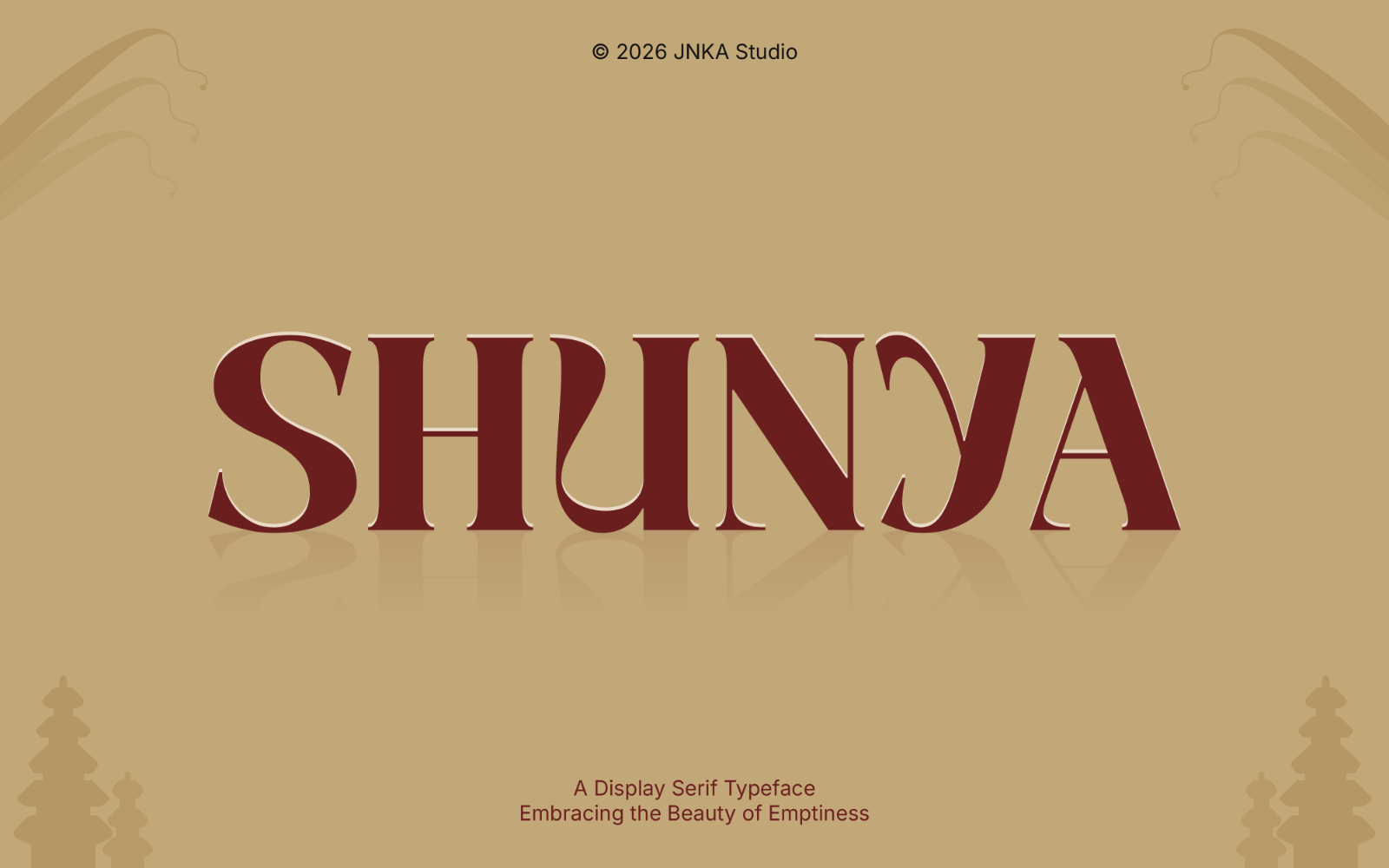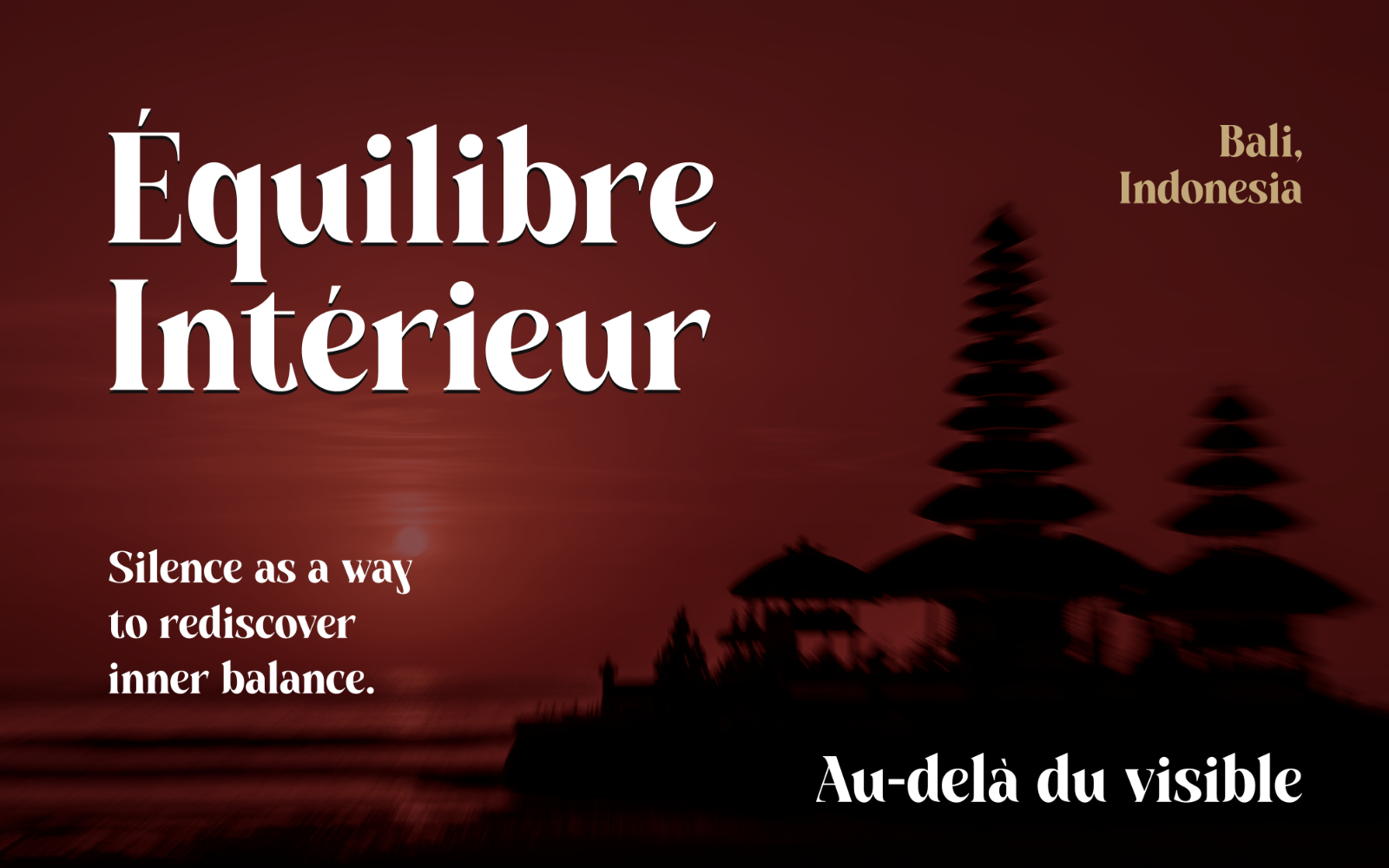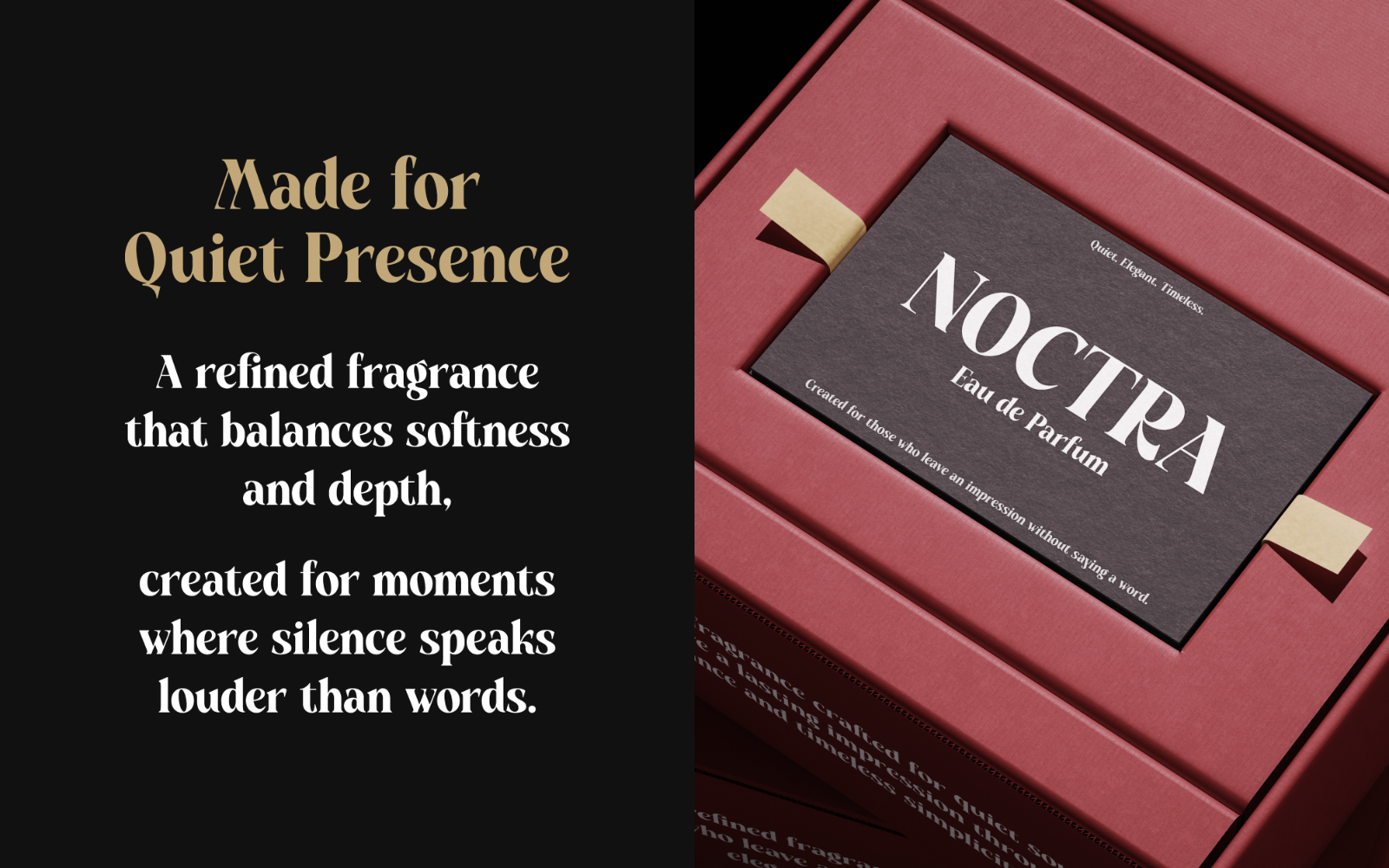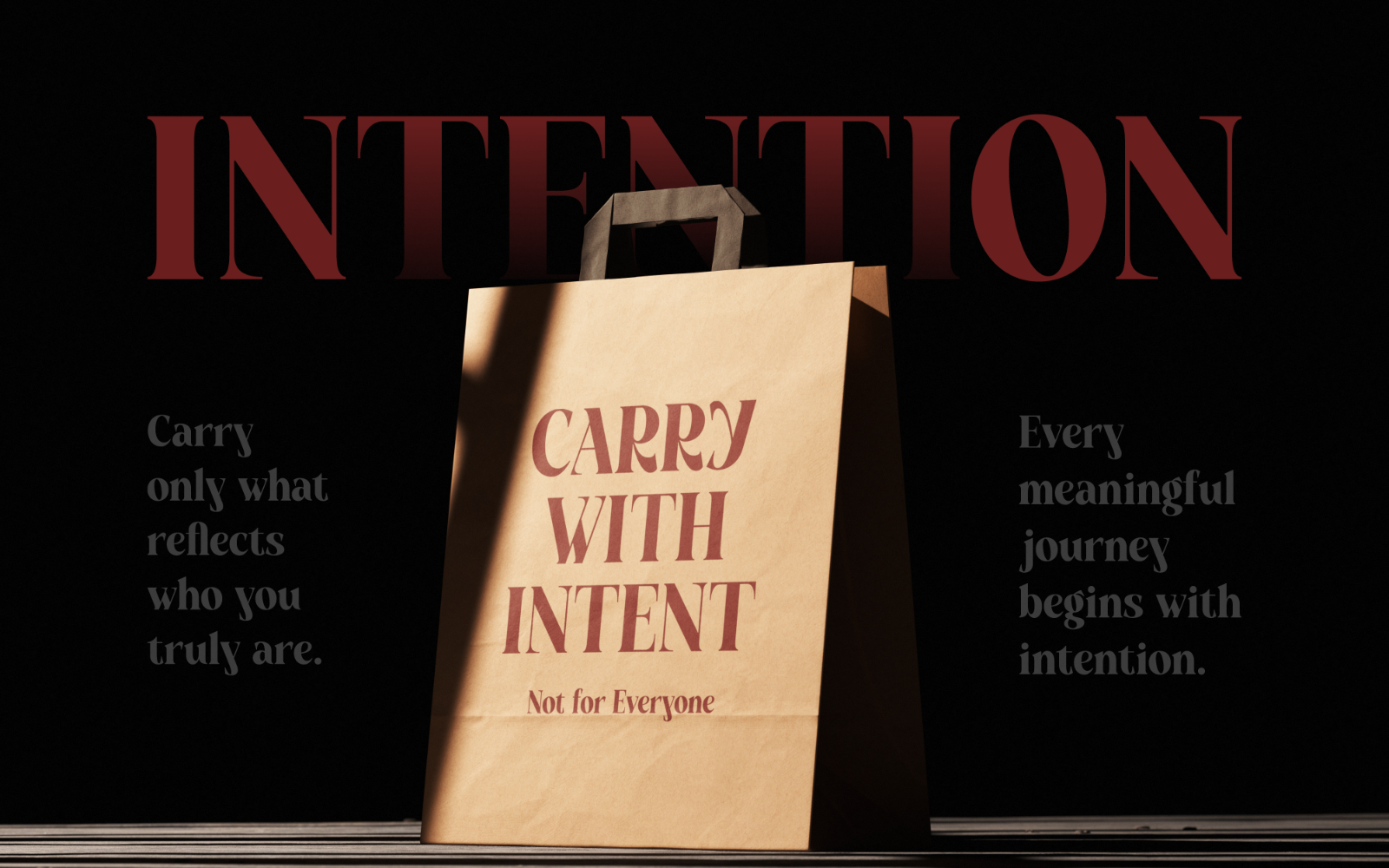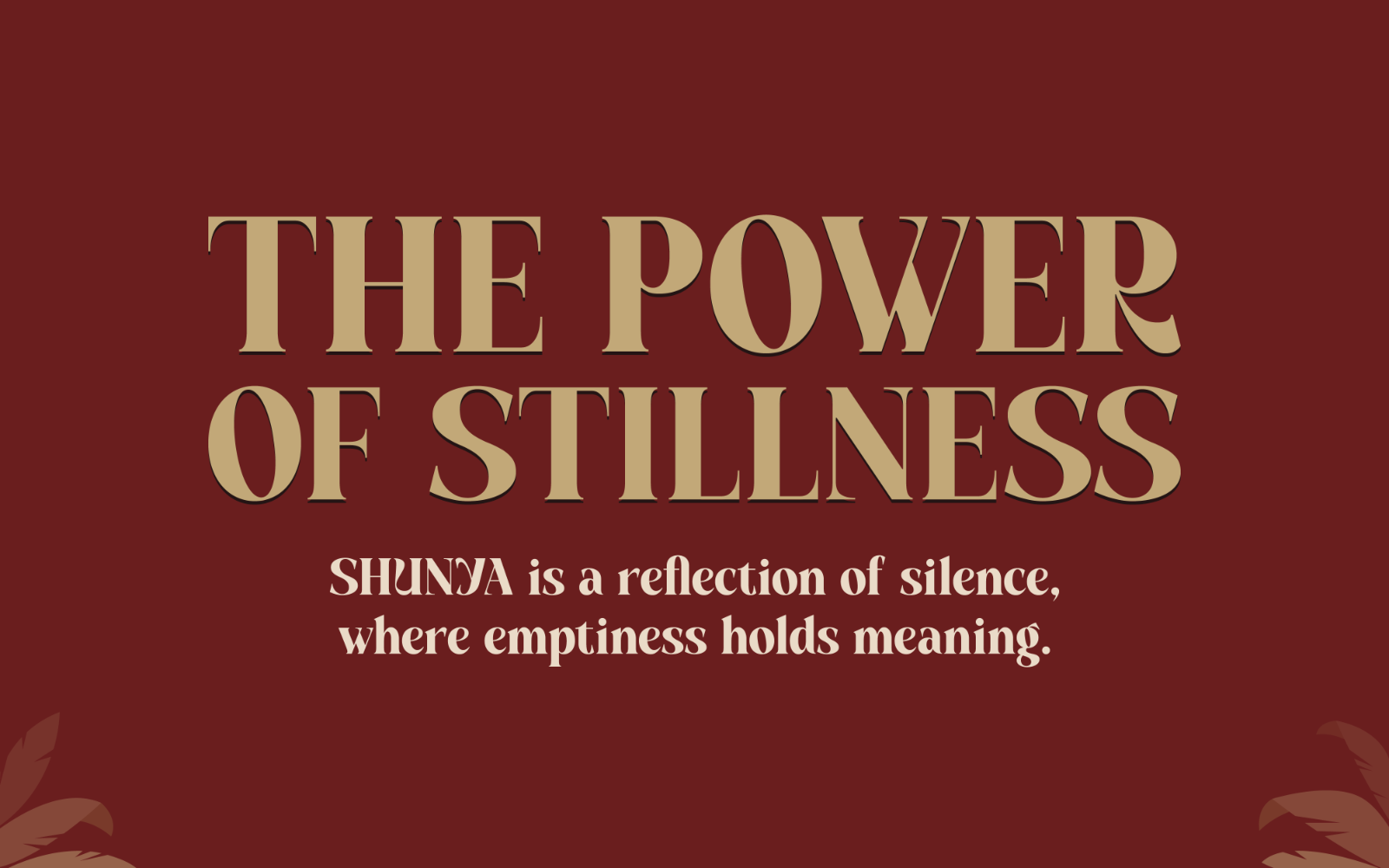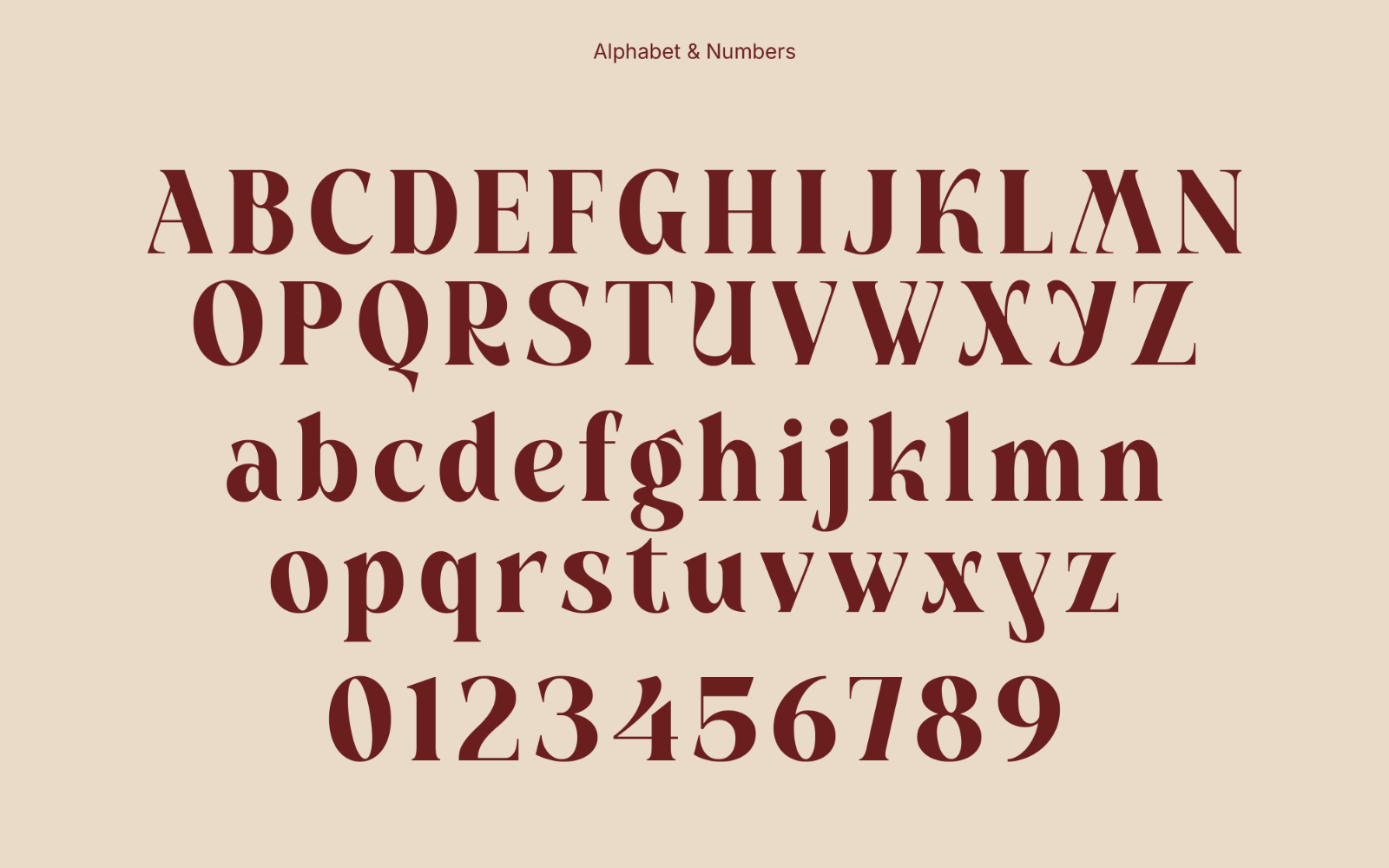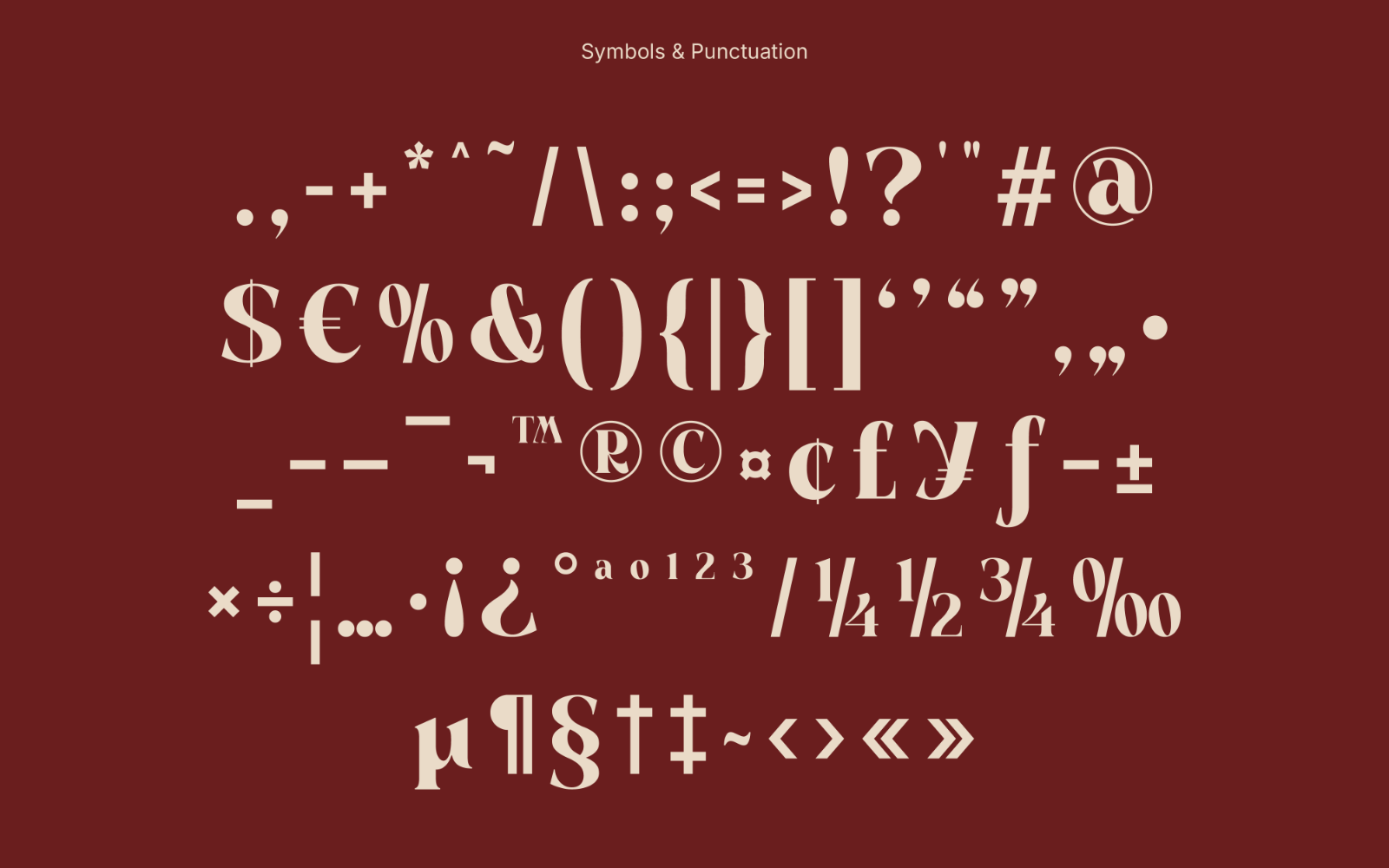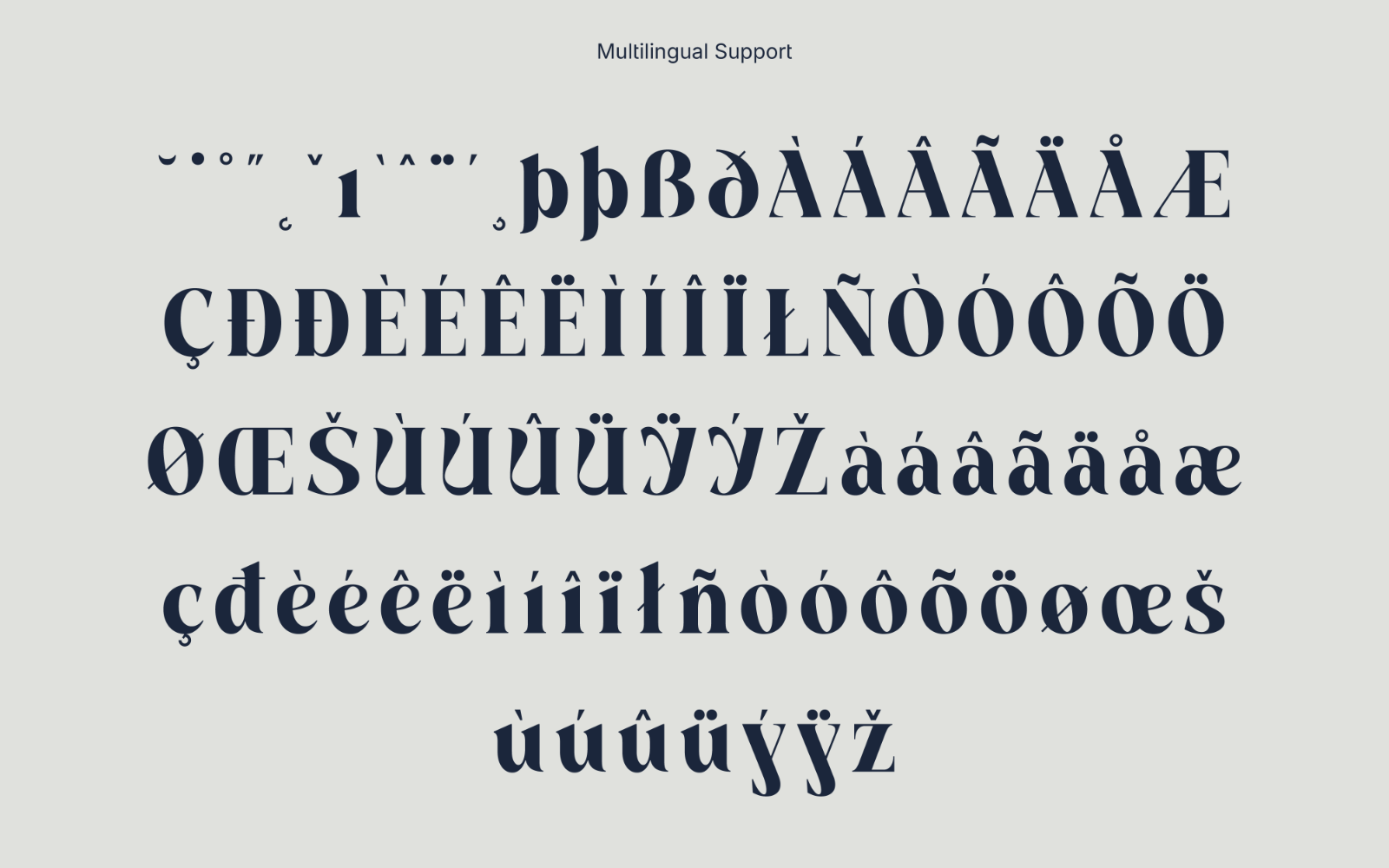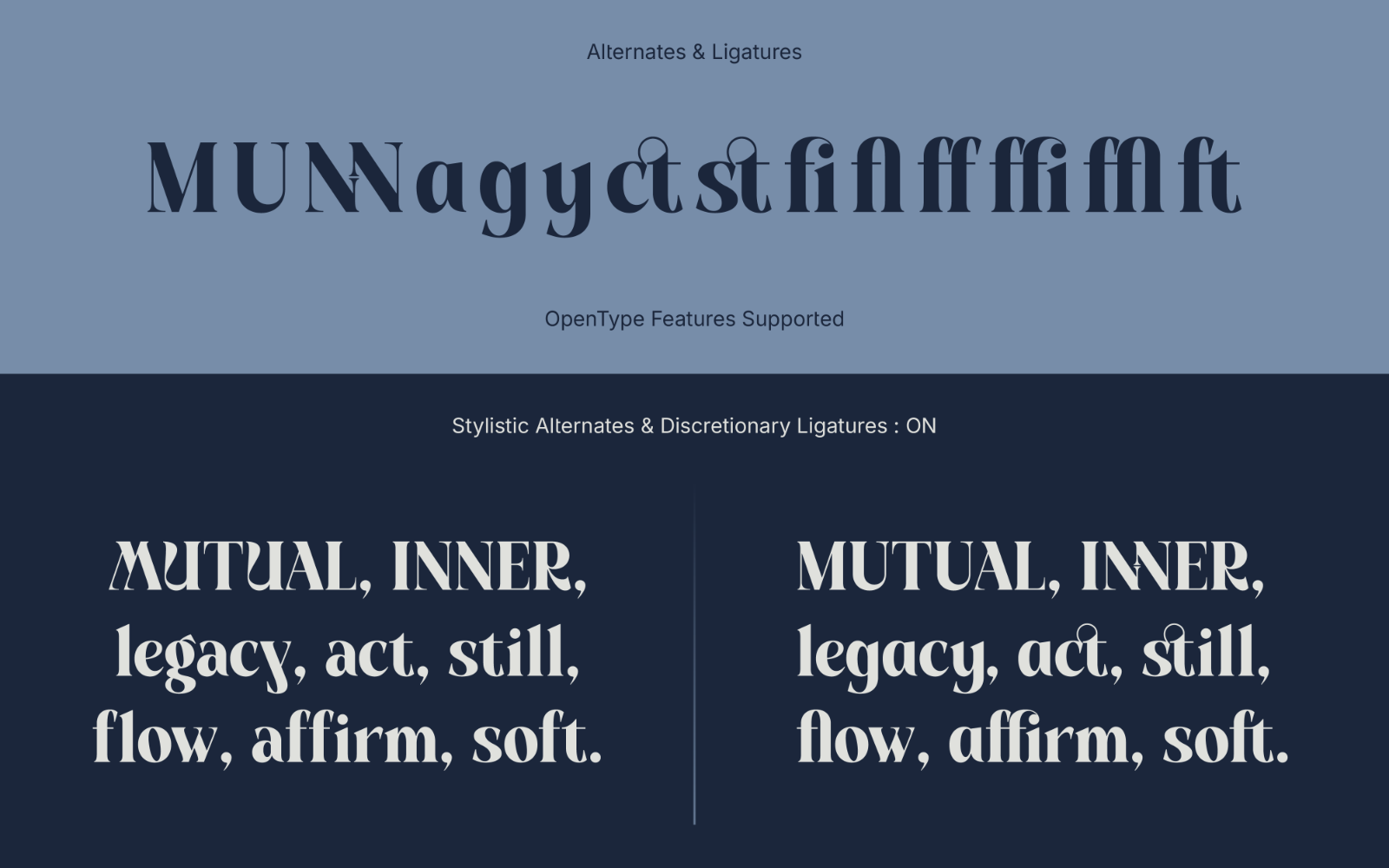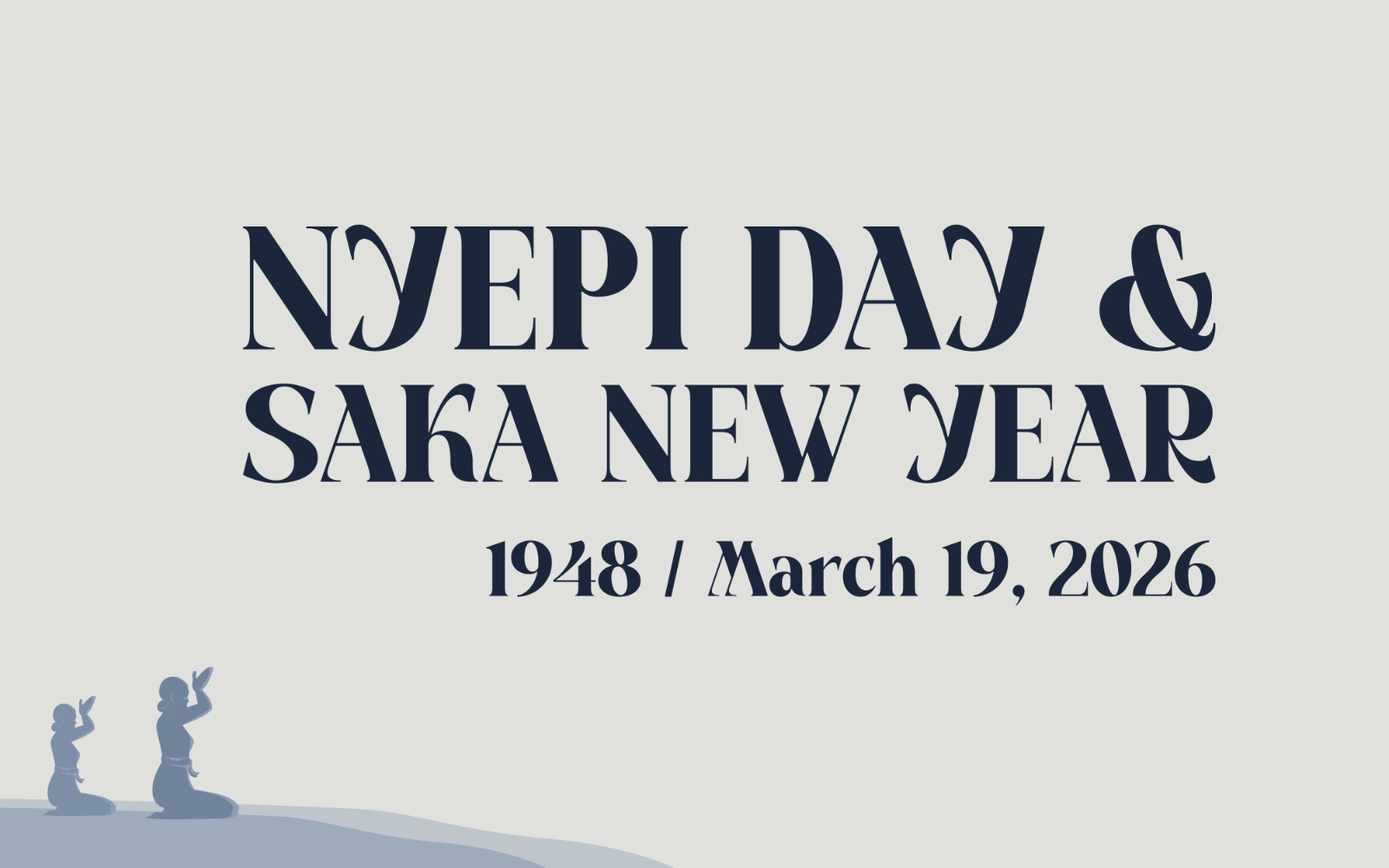
Shunya
Is a high-contrast display serif typeface inspired by the quiet introspection of Nyepi, the Balinese Day of Silence. It explores the relationship between form and emptiness through refined details and expressive letterforms. Designed for impactful headlines and visual storytelling, Shunya brings a sense of depth, calm, and presence to contemporary design.
Font Features:
• Uppercase & Lowercase Letters
• Numbers & Standard Punctuation
• Symbols & Special Characters
• Basic Multilingual Support (Latin-based)
• Stylistic Alternates
• Standard & Decorative Ligatures
• Carefully Adjusted Kerning
• Approx. 244 Glyphs
• OpenType Features